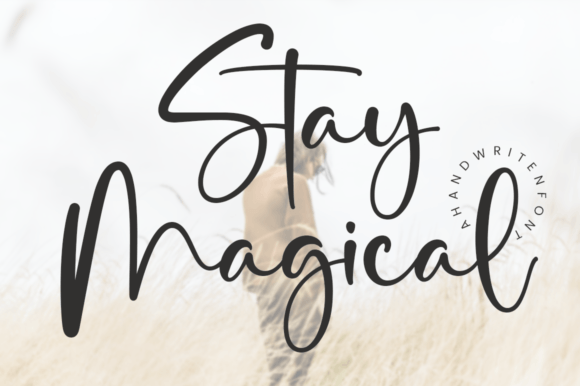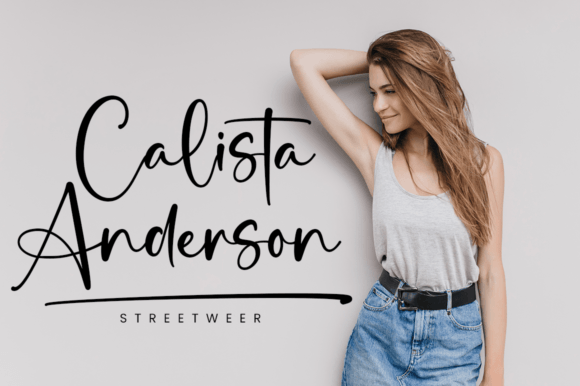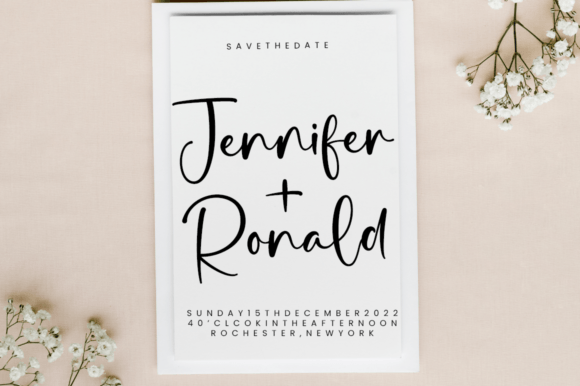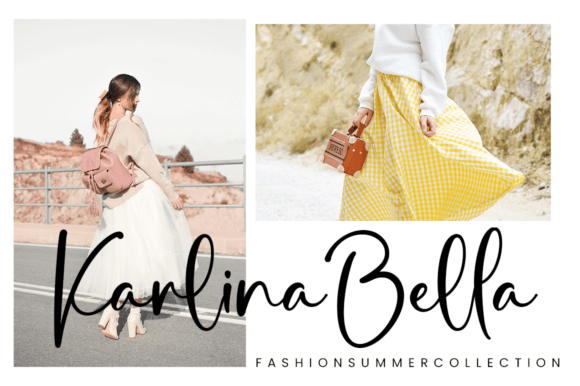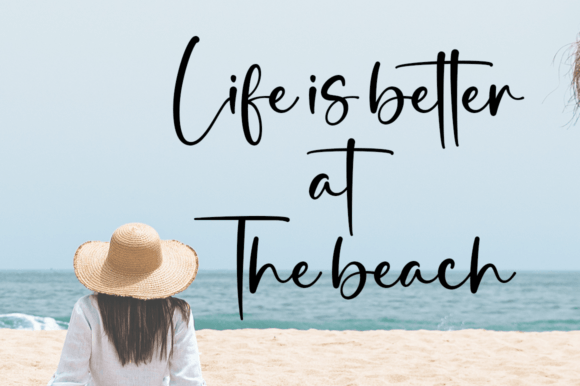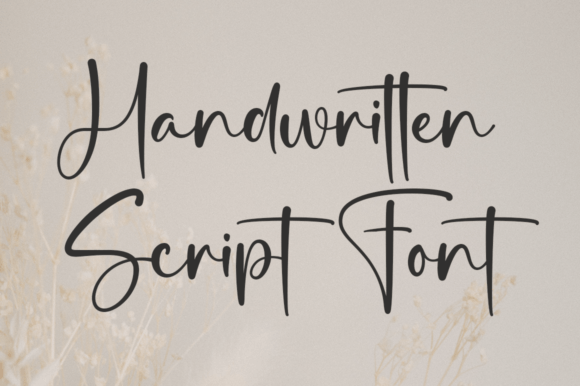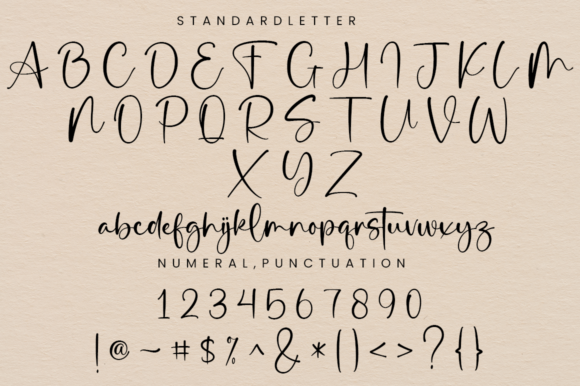
Stay Magical is a lovely and delicate script font that exudes elegance and class. This font was particularly crafted for those who need a beautiful and refreshing look to their designs.
Stay Magical Font